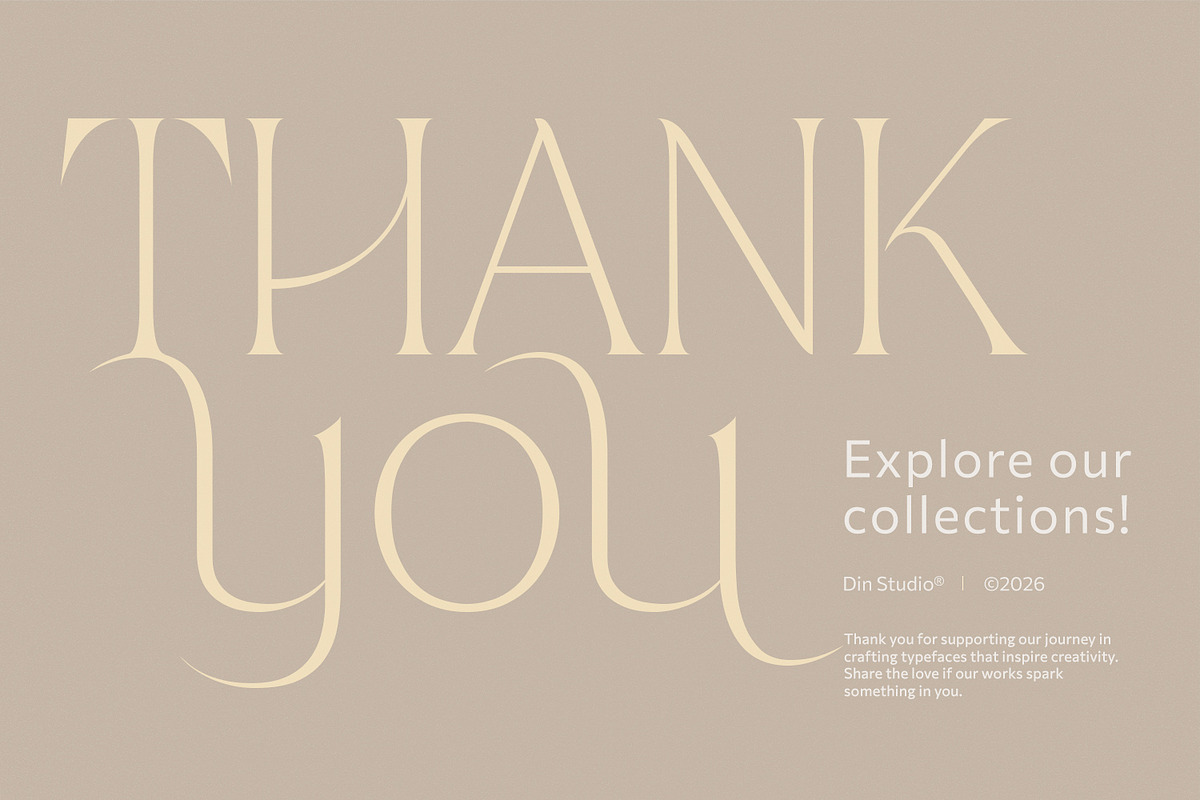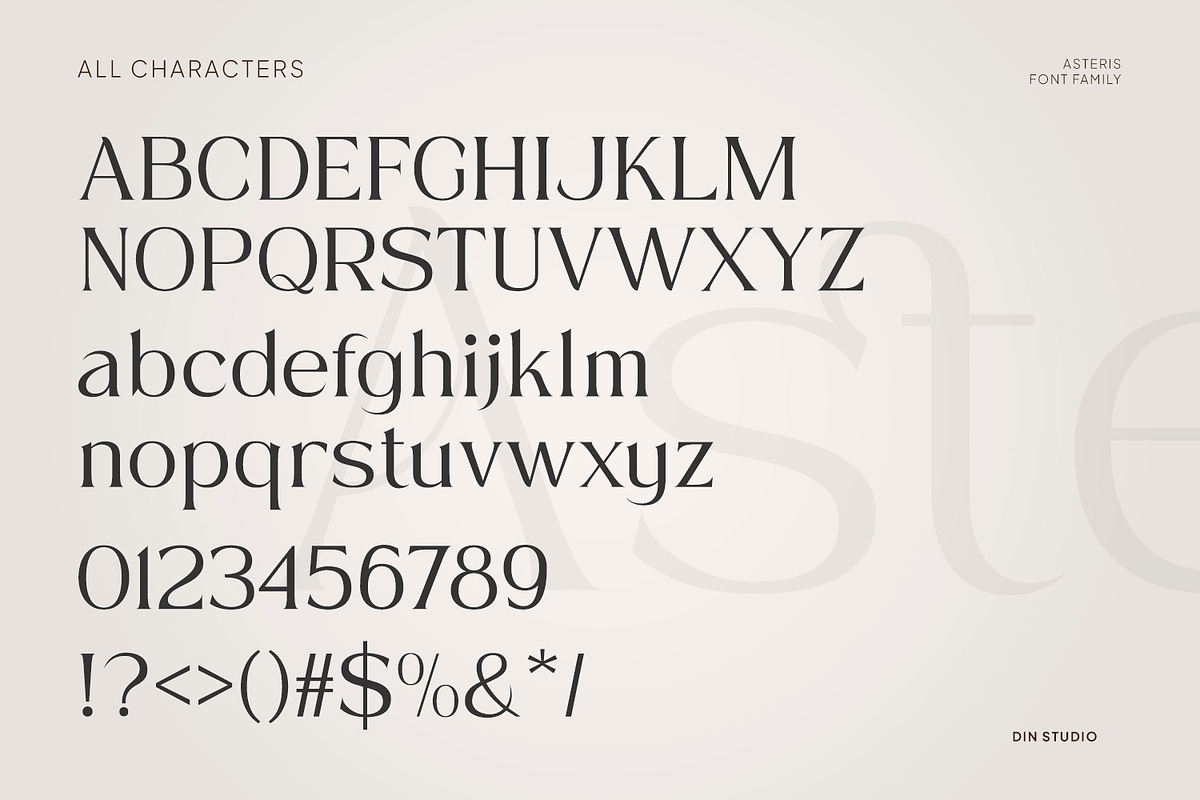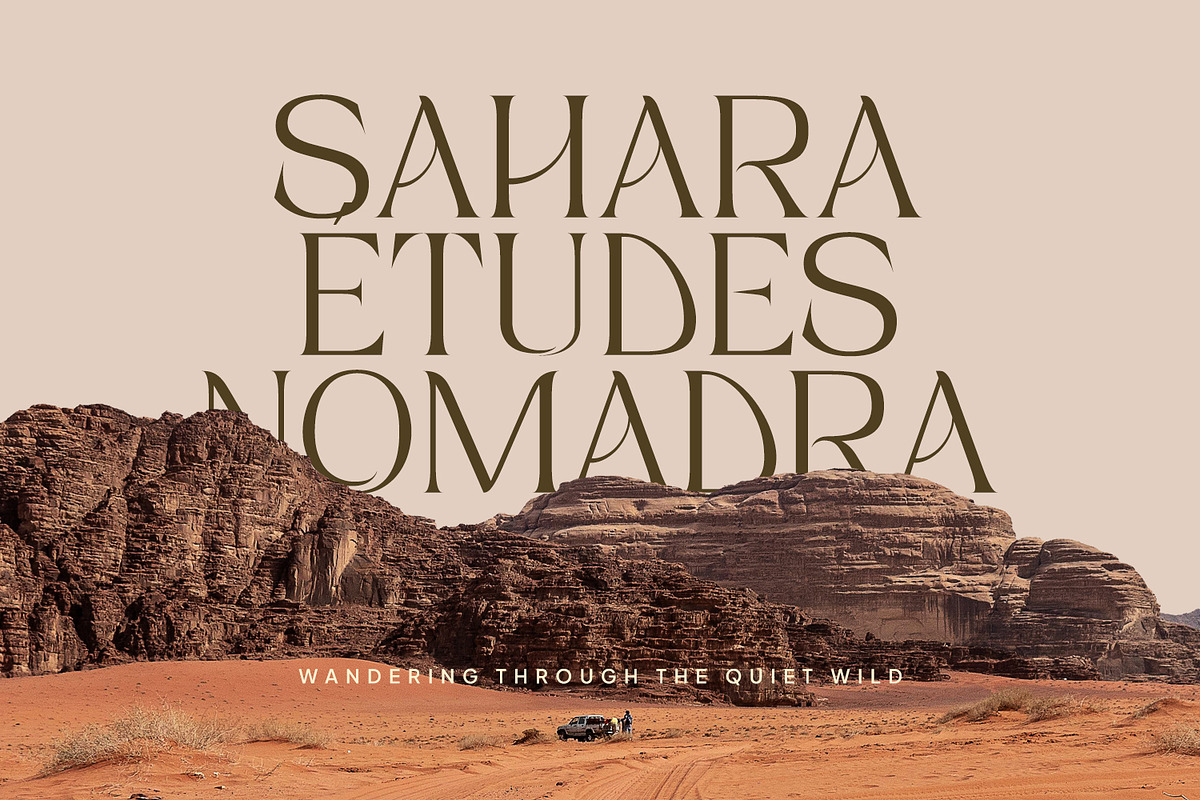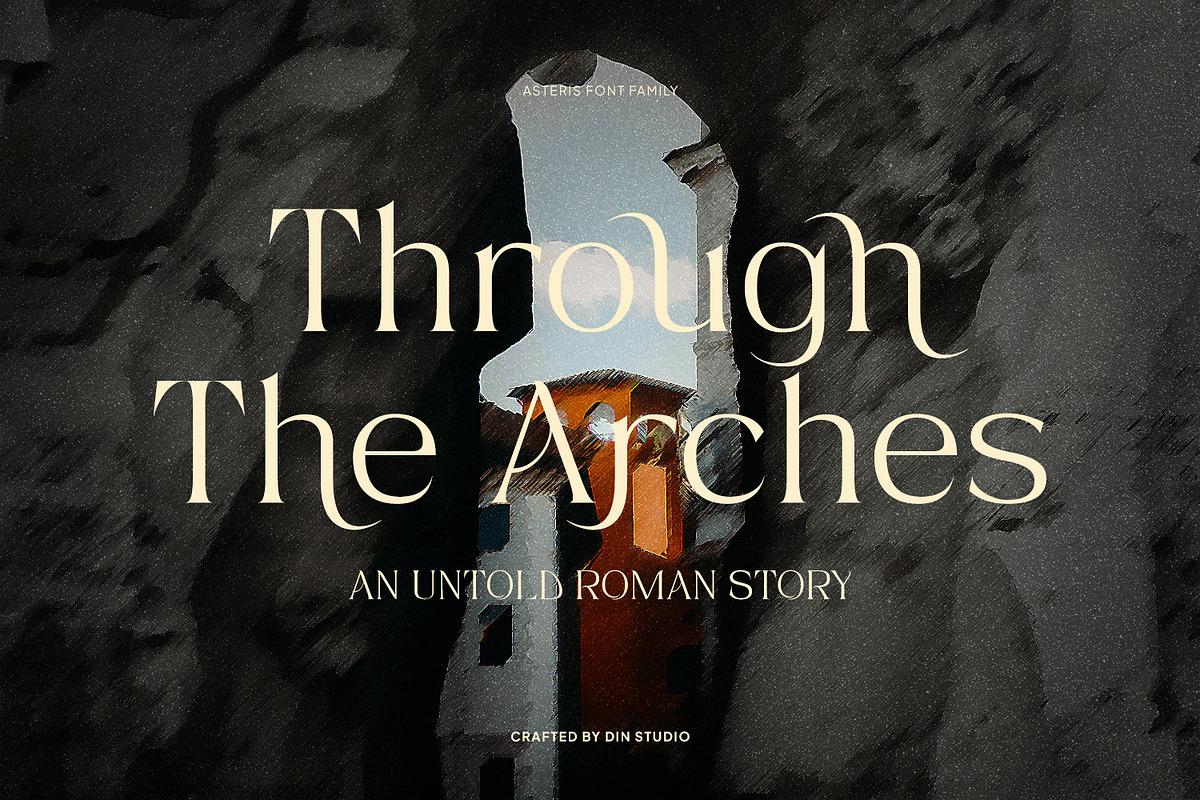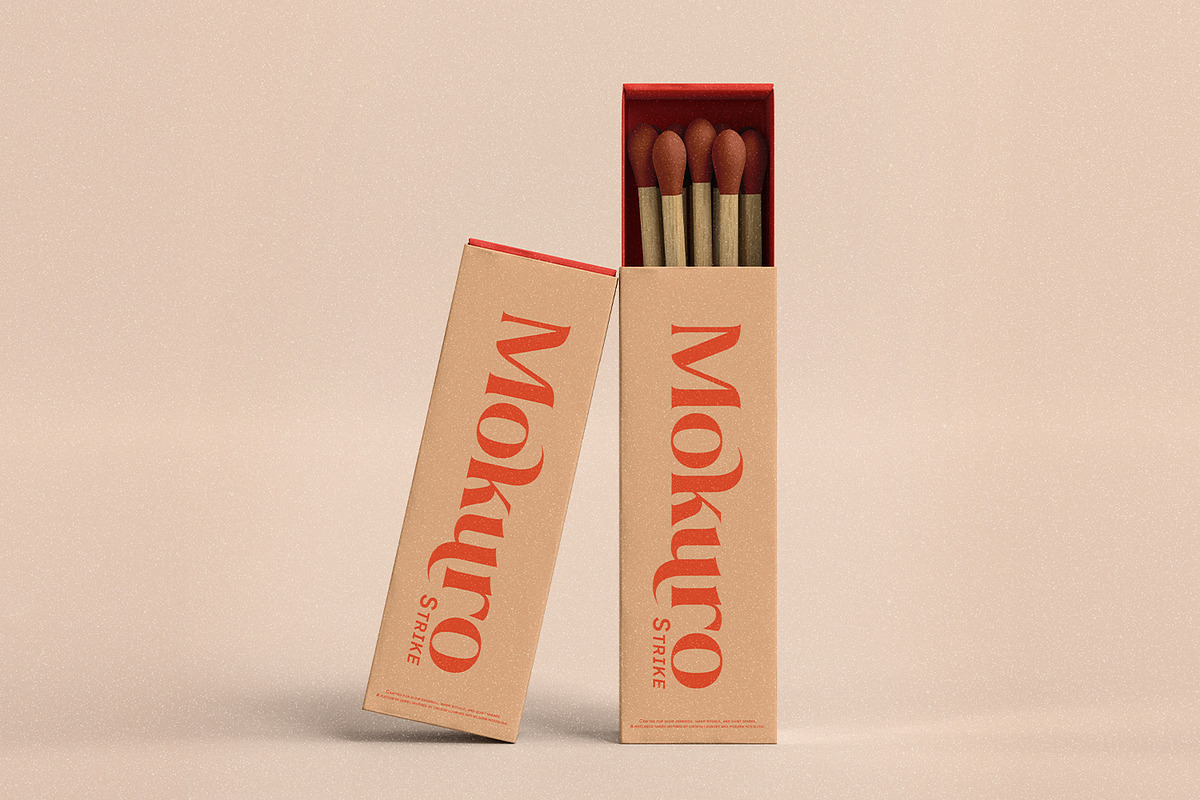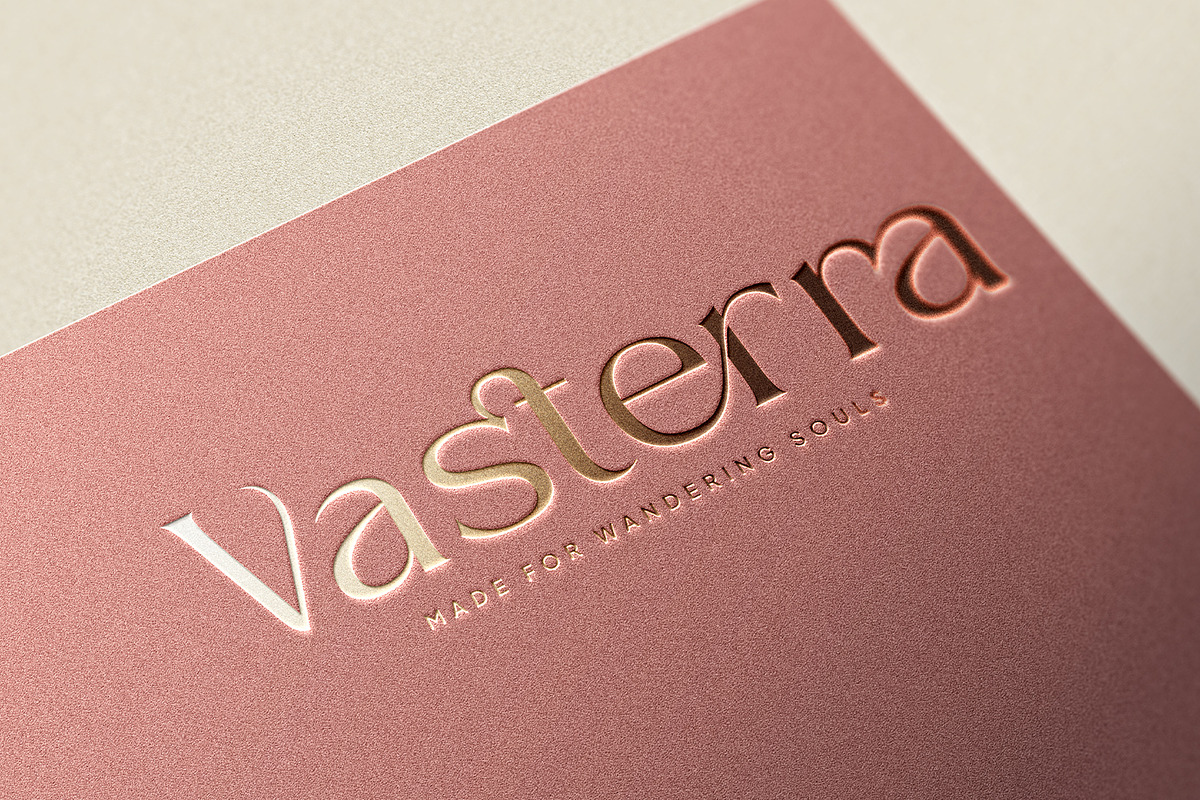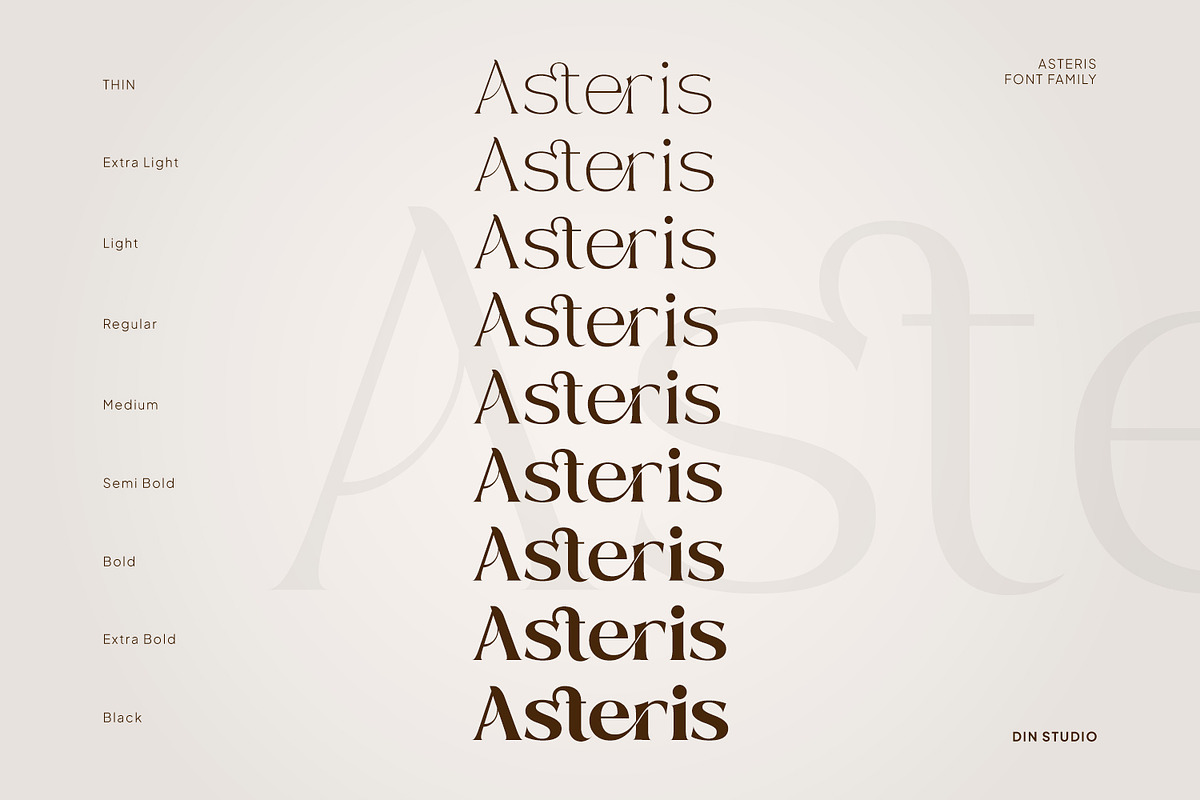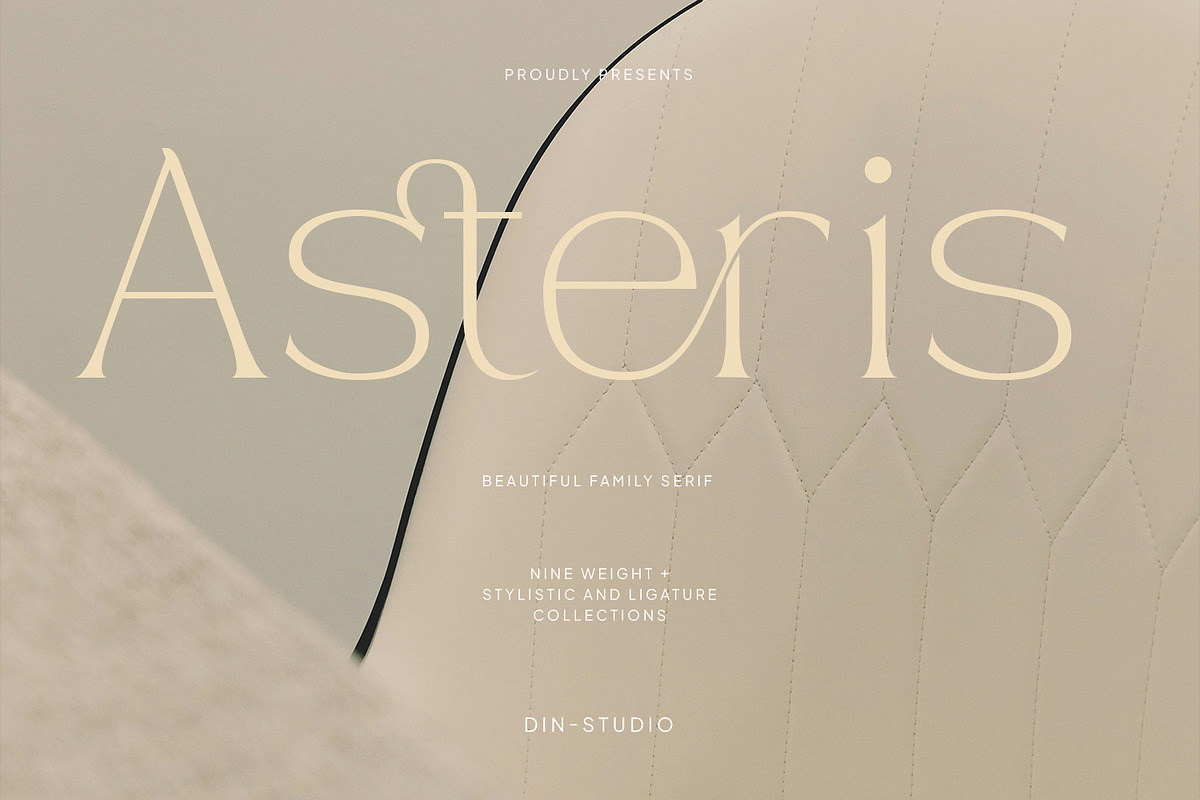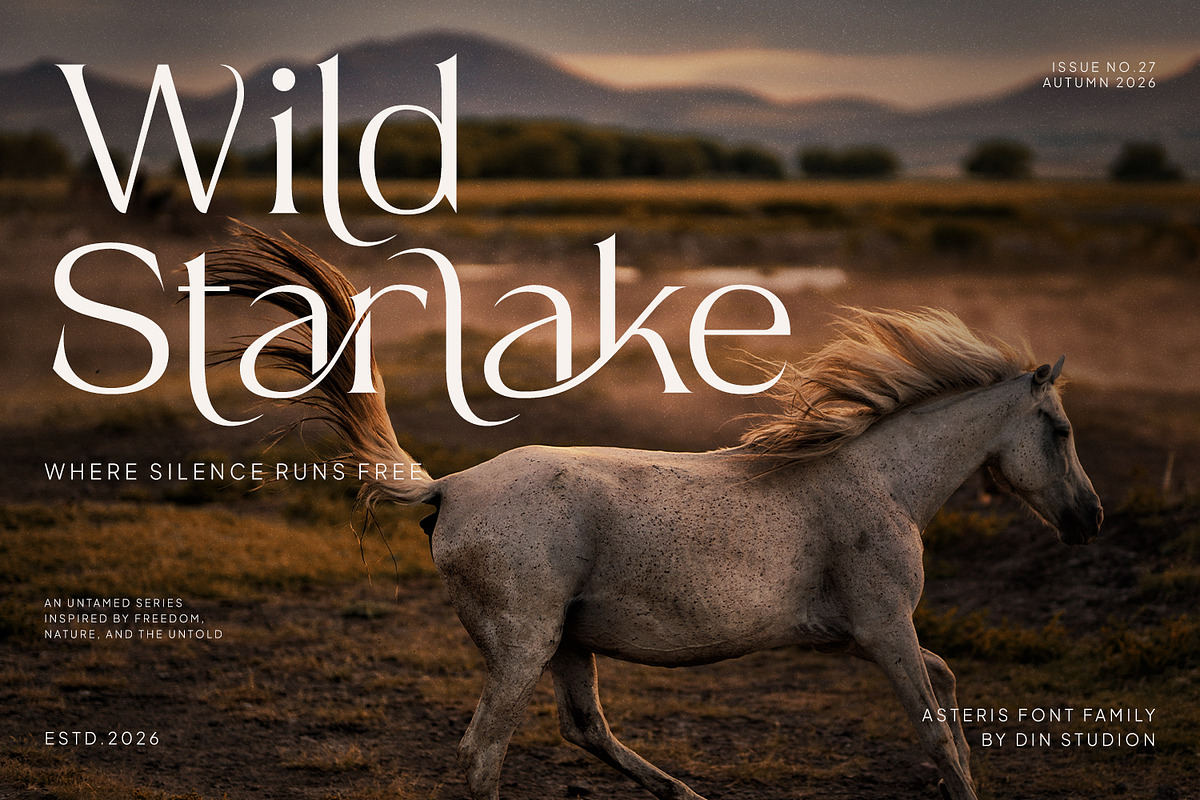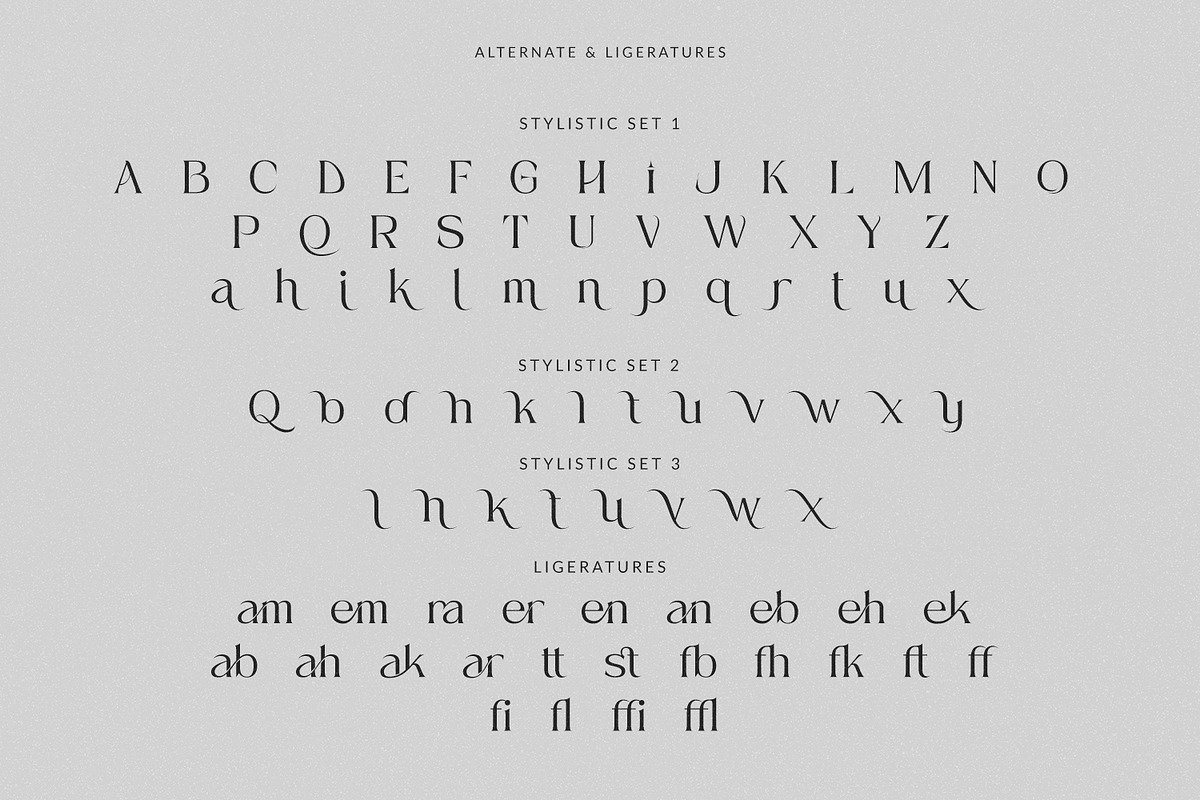
Asteris
Asteris is a premium modern serif font family. for designers who value both style and functionality. Designed to adapt to a wide range of creative projects, Asteris includes nine weights, from Thin to Black, giving you complete control over your typography. This extensive range allows you to build clear visual hierarchies, create expressive layouts, and maintain a consistent brand identity across every design. Furthermore, its timeless beauty and modern character make it an essential typeface for designers who value both style and functionality. In addition, enjoy the features here.
Stylistic Sets
Multilingual Supports
Numerals and Punctuations
Asteris fits in logos, quotes, name cards, branding, posters, and many more designs. Find out more ways to use this font by taking a look at the font preview.